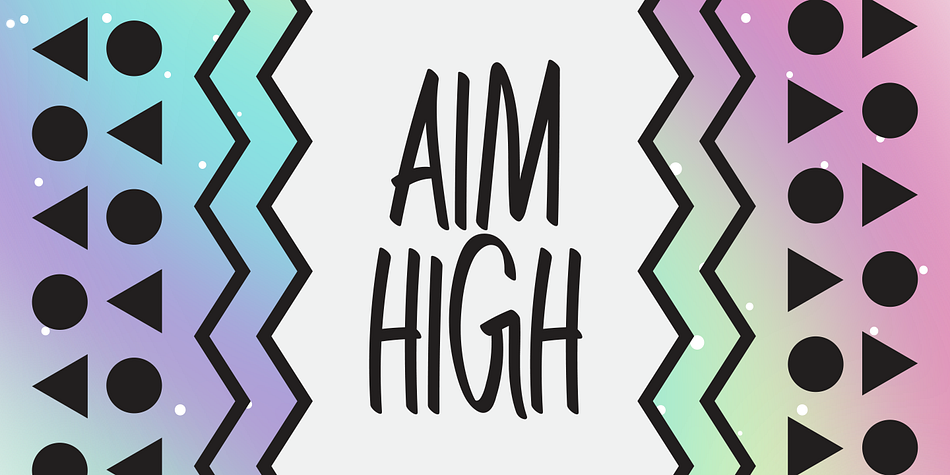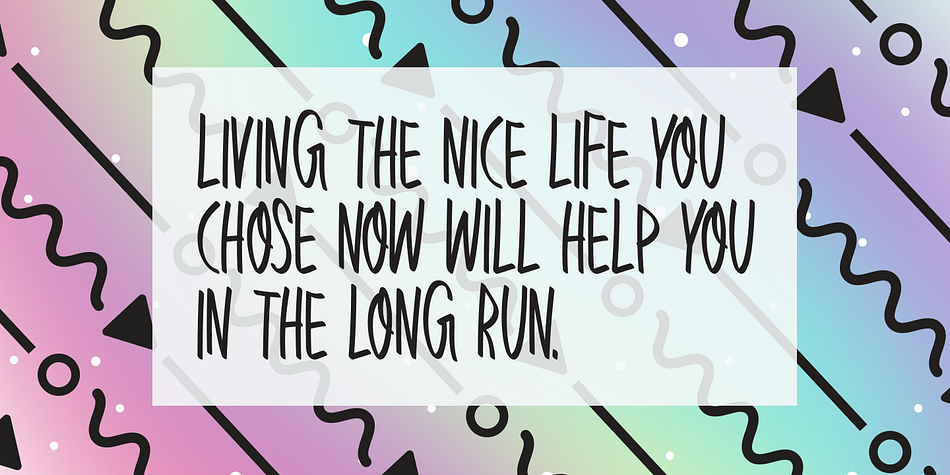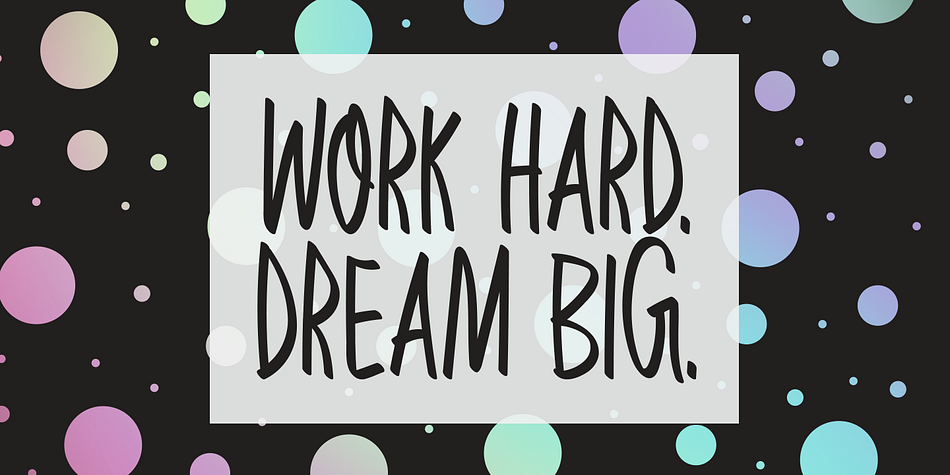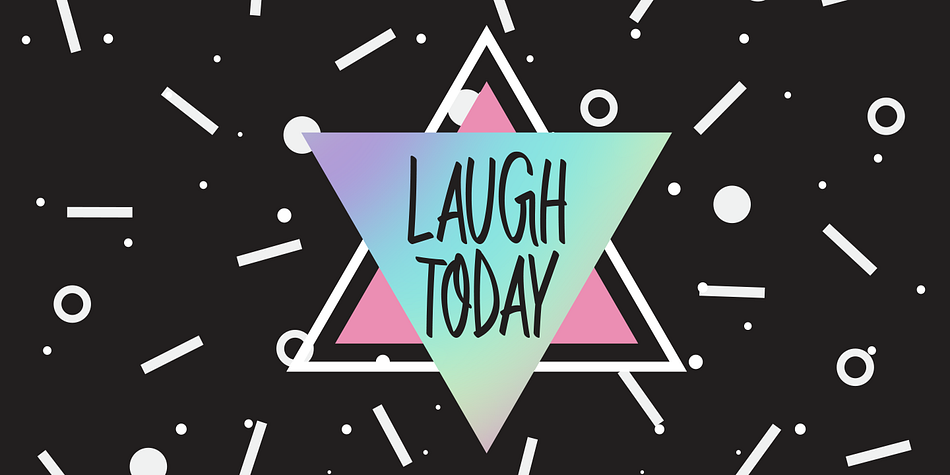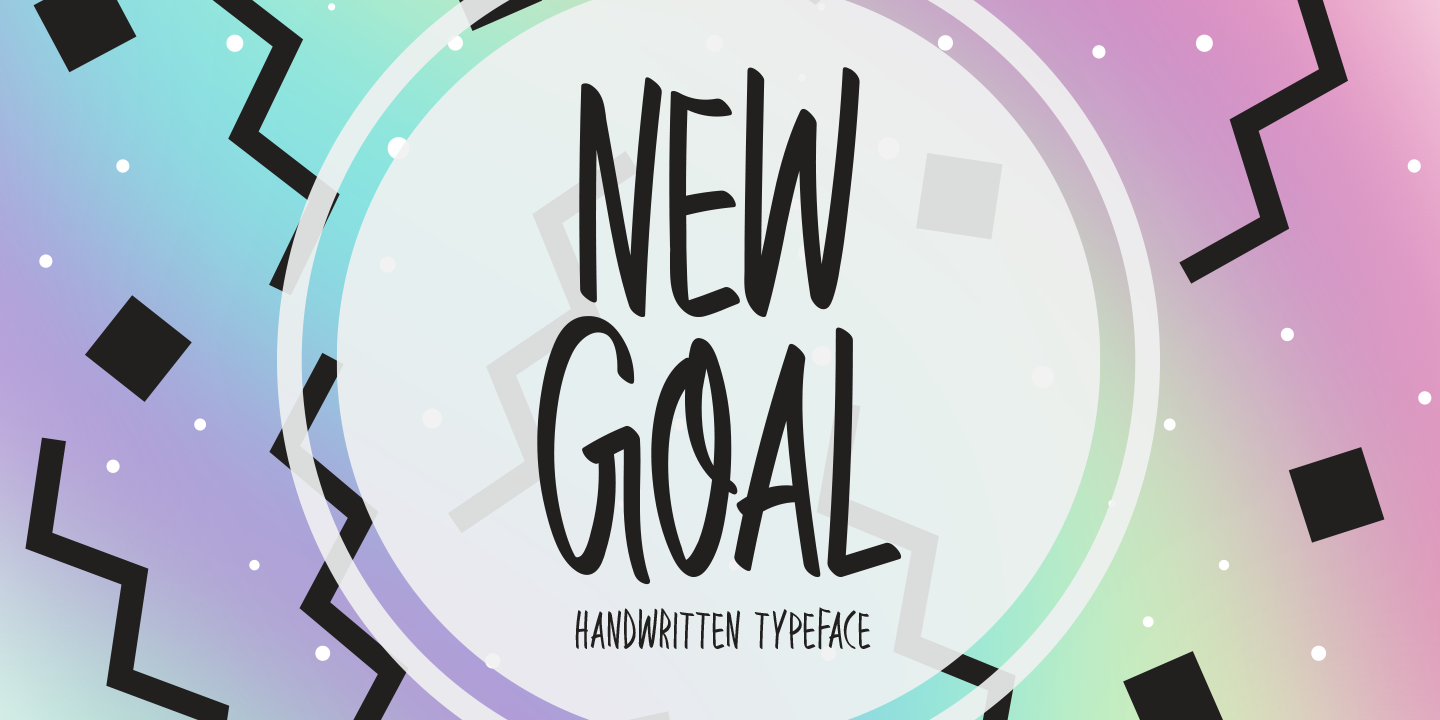
NEW GOAL
Designed by Md. Shohail Bhuiyan, New Goal is a brush display and hand drawn font family published by Seemly Fonts.
New Goal is a fun and quirky handwritten font. It can easily be matched to an incredibly large set of projects, so add it to your creative ideas and notice how it makes them stand out!